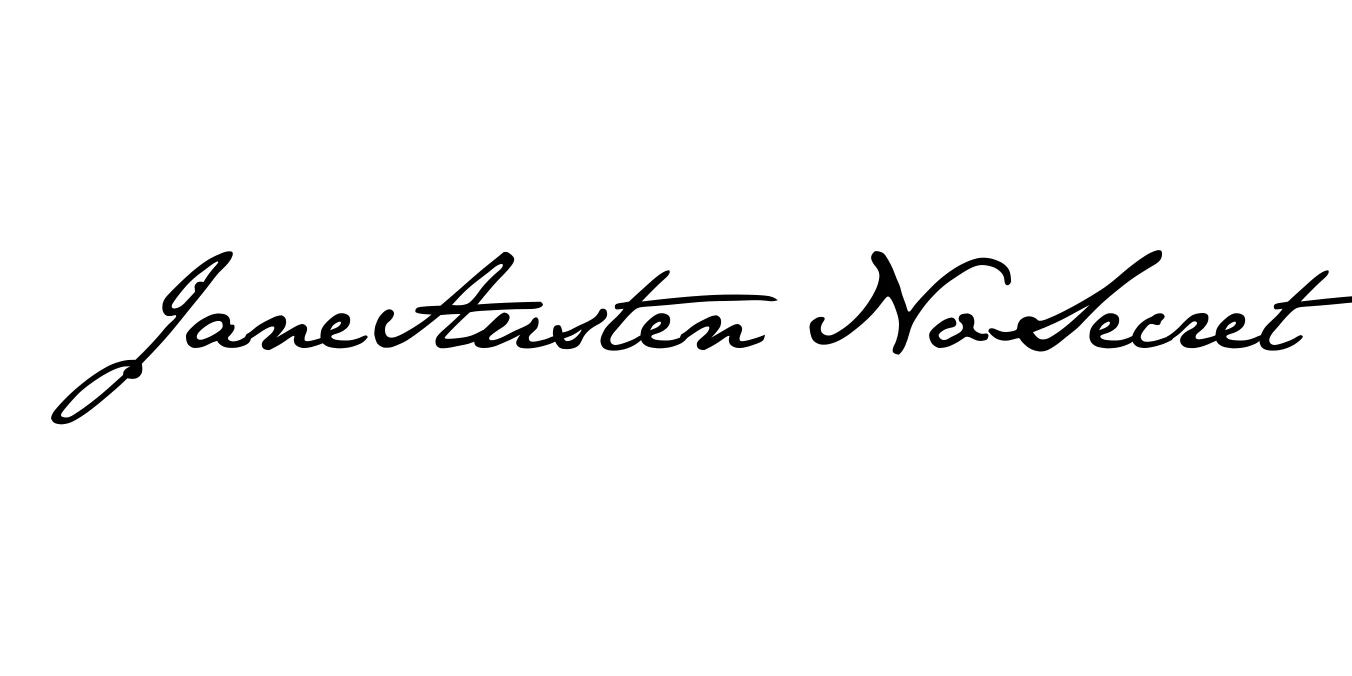
JaneAusten NoSecret
Designed by Pia Frauss
Category Script
Designer Pia Frauss
JaneAusten NoSecret is an elegant and historically inspired script font that meticulously recreates the authentic handwriting of the renowned English novelist Jane Austen. Developed based on her original manuscripts and personal letters, this typeface captures the unique rhythm, slant, and character variations of 18th-century penmanship. It serves as a tribute to the literary elegance of the Regency era, providing designers with a tool to evoke a sense of timeless sophistication and intimacy in their projects.
This specific variation focuses on historical accuracy and fluid connectivity, making it a standout choice for period-accurate designs. The delicate strokes and rhythmic flow of the characters provide a personal touch that digital fonts often lack. Whether you are working on a literary project or a vintage-themed brand, the JaneAusten NoSecret font brings a layer of scholarly prestige and romantic charm to any composition.
JaneAusten NoSecret Best Uses
Wedding Stationery
Perfect for elegant invitations, RSVP cards, and envelopes that require a romantic, classic feel.
Book Covers
Ideal for historical fiction, biographies, or classic literature reprints.
Branding
Used by artisanal brands or luxury boutiques to create a sophisticated and personal identity.
Digital Scrapbooking
Adds an authentic, handwritten touch to digital memories and historical archives.